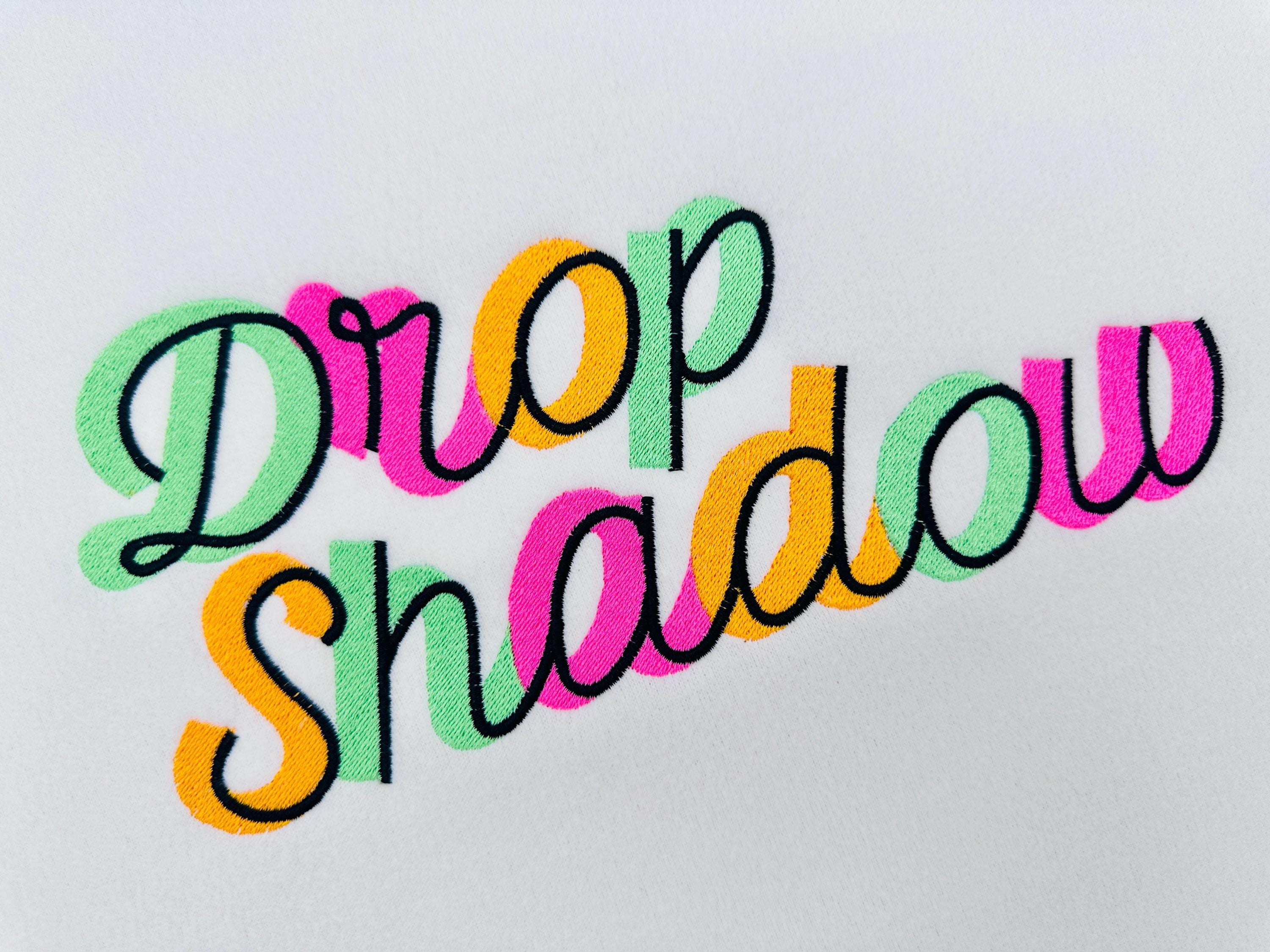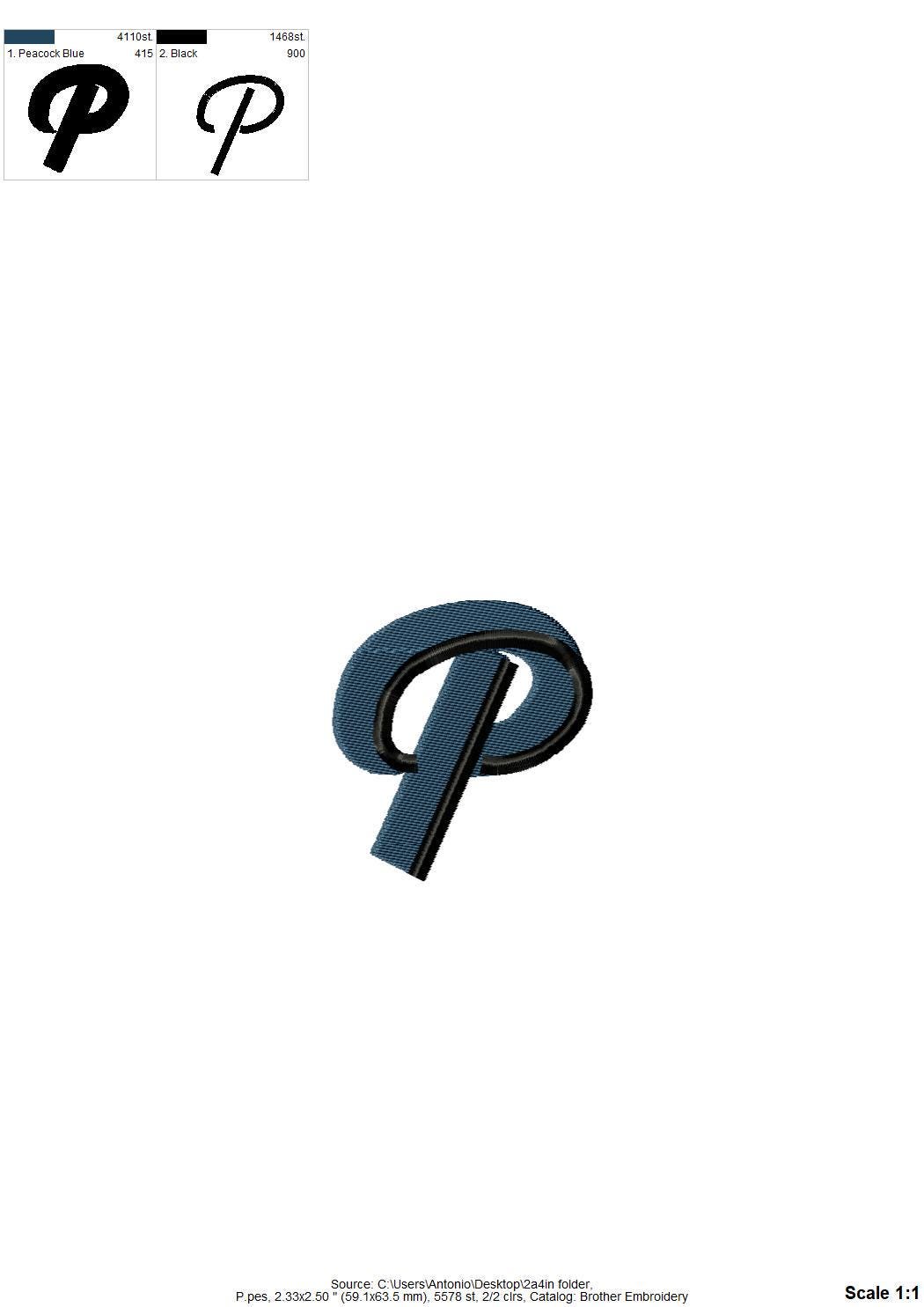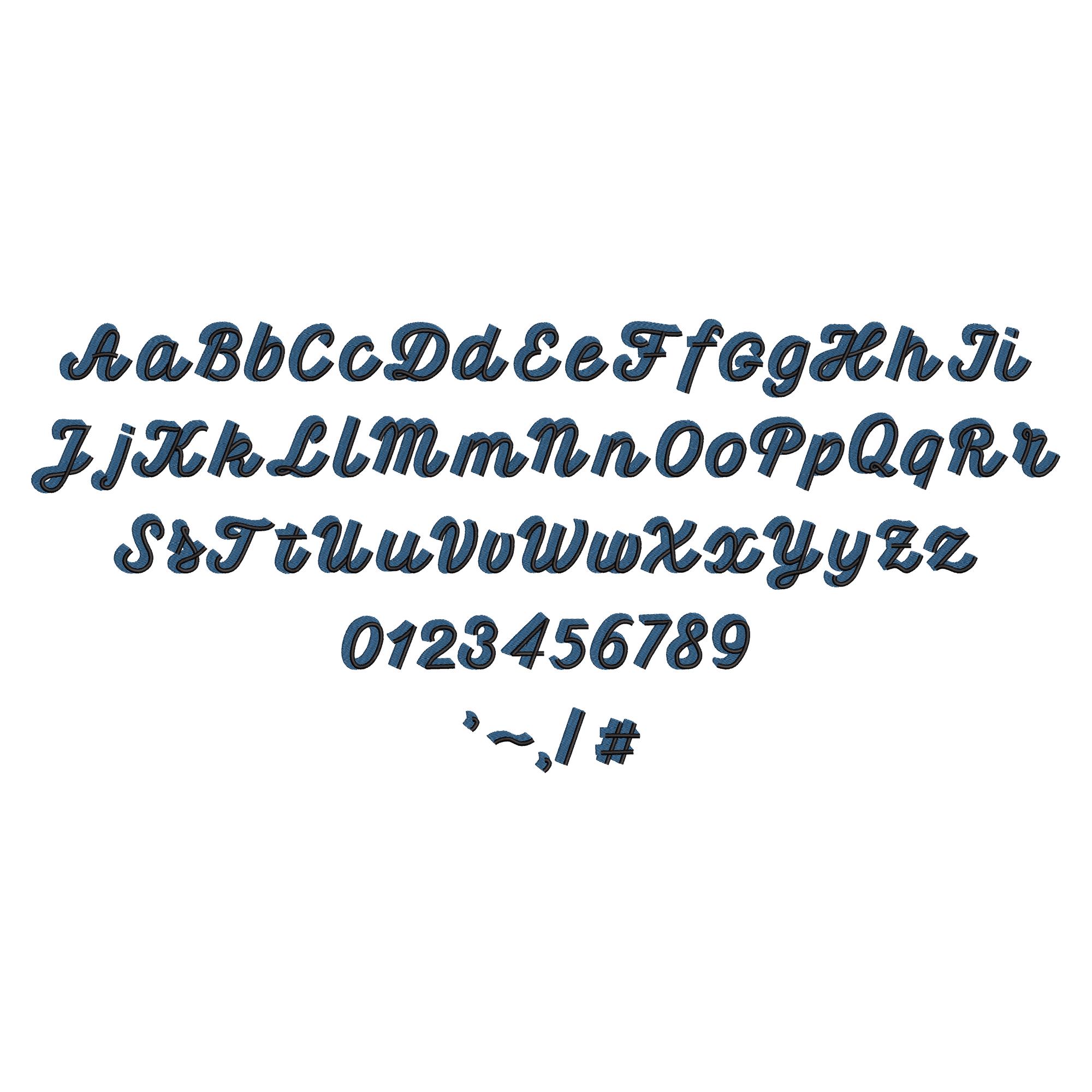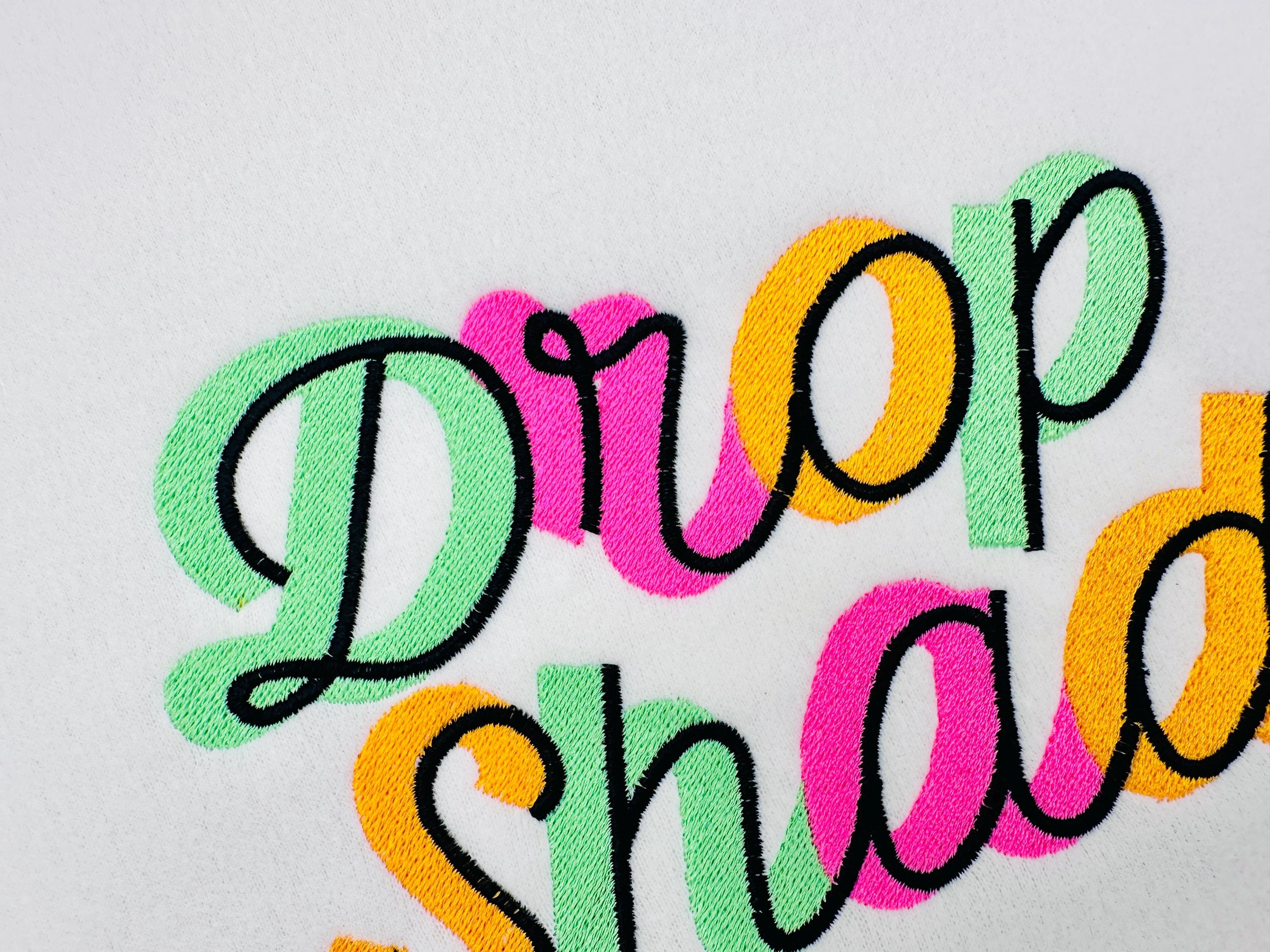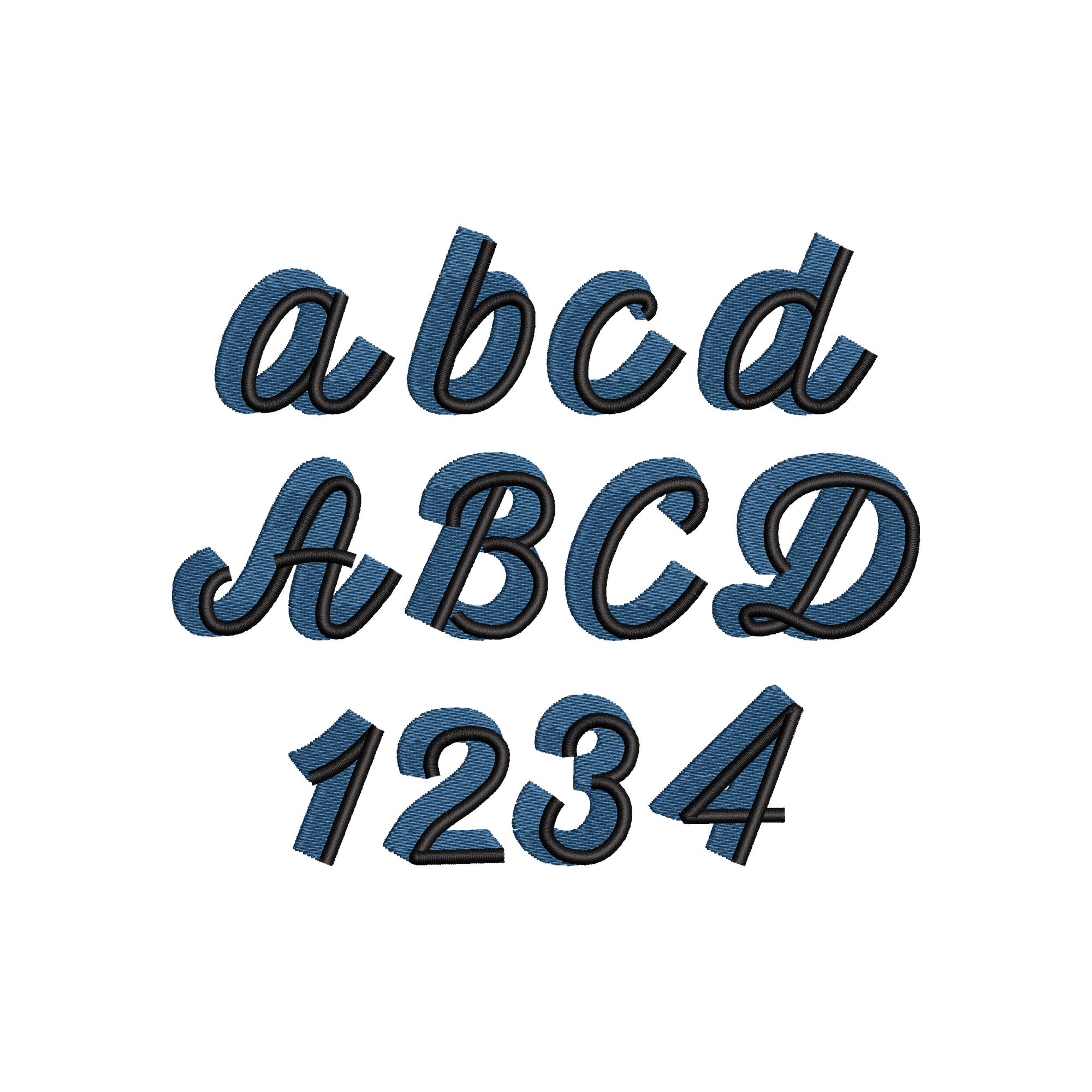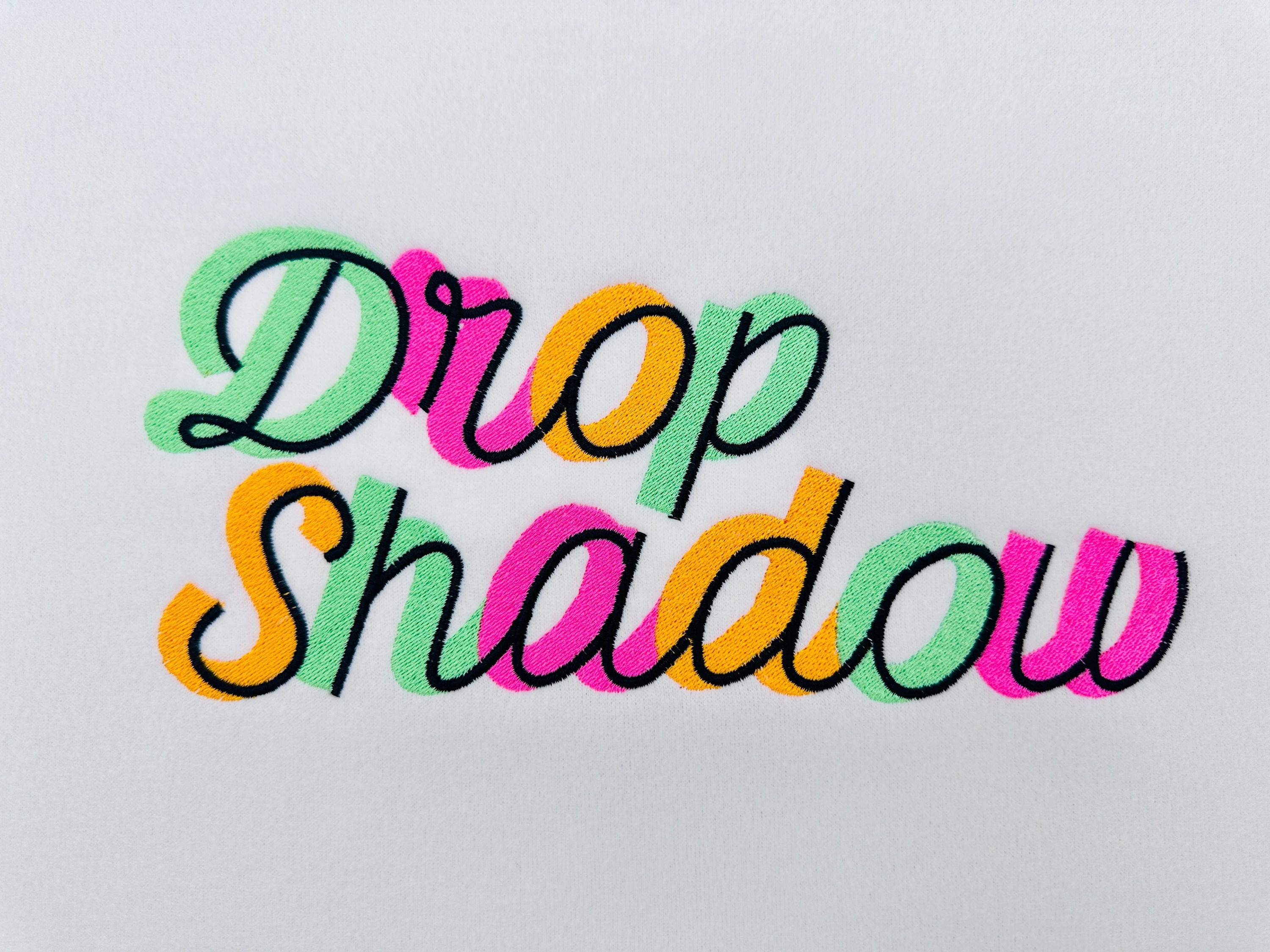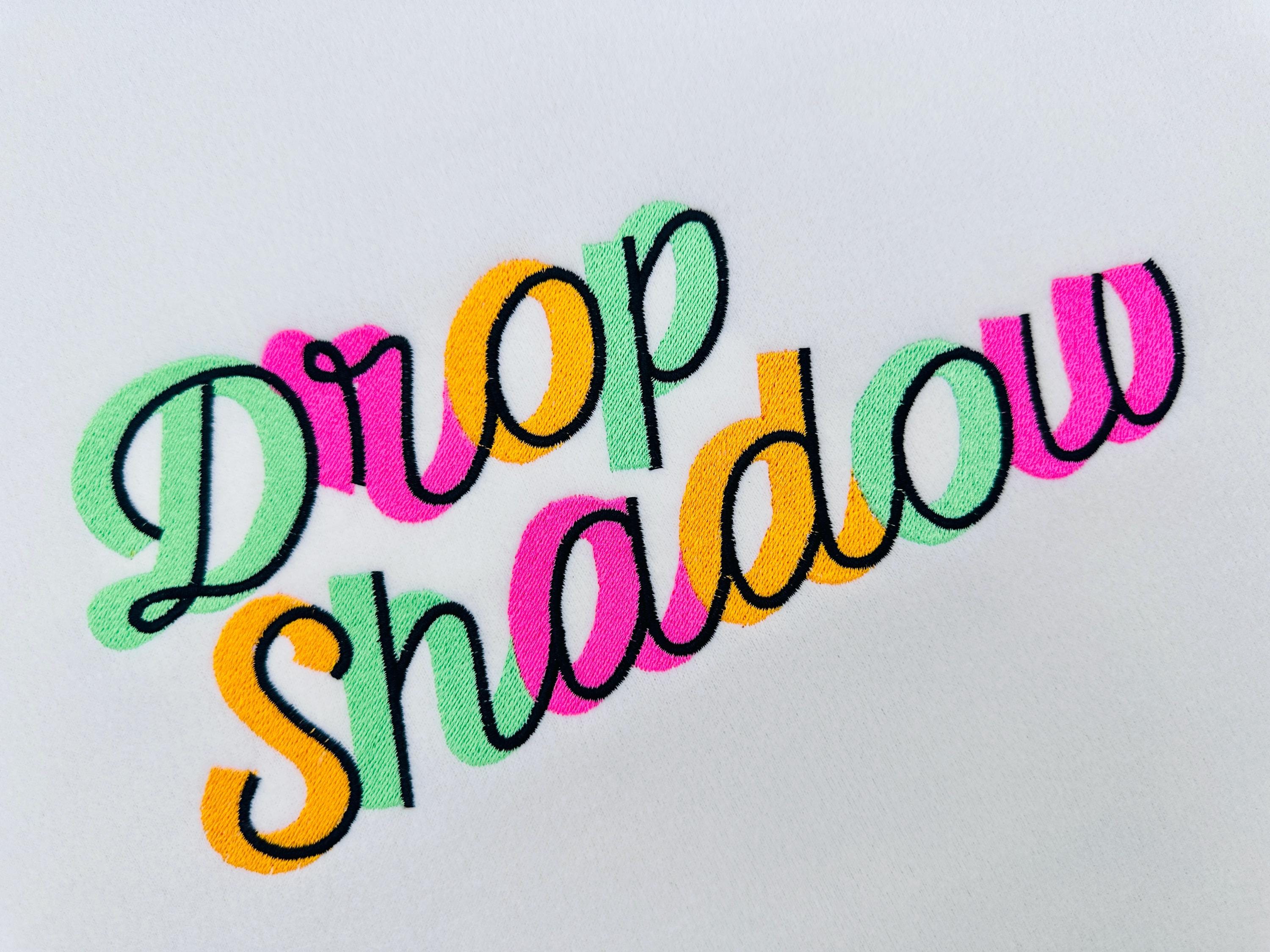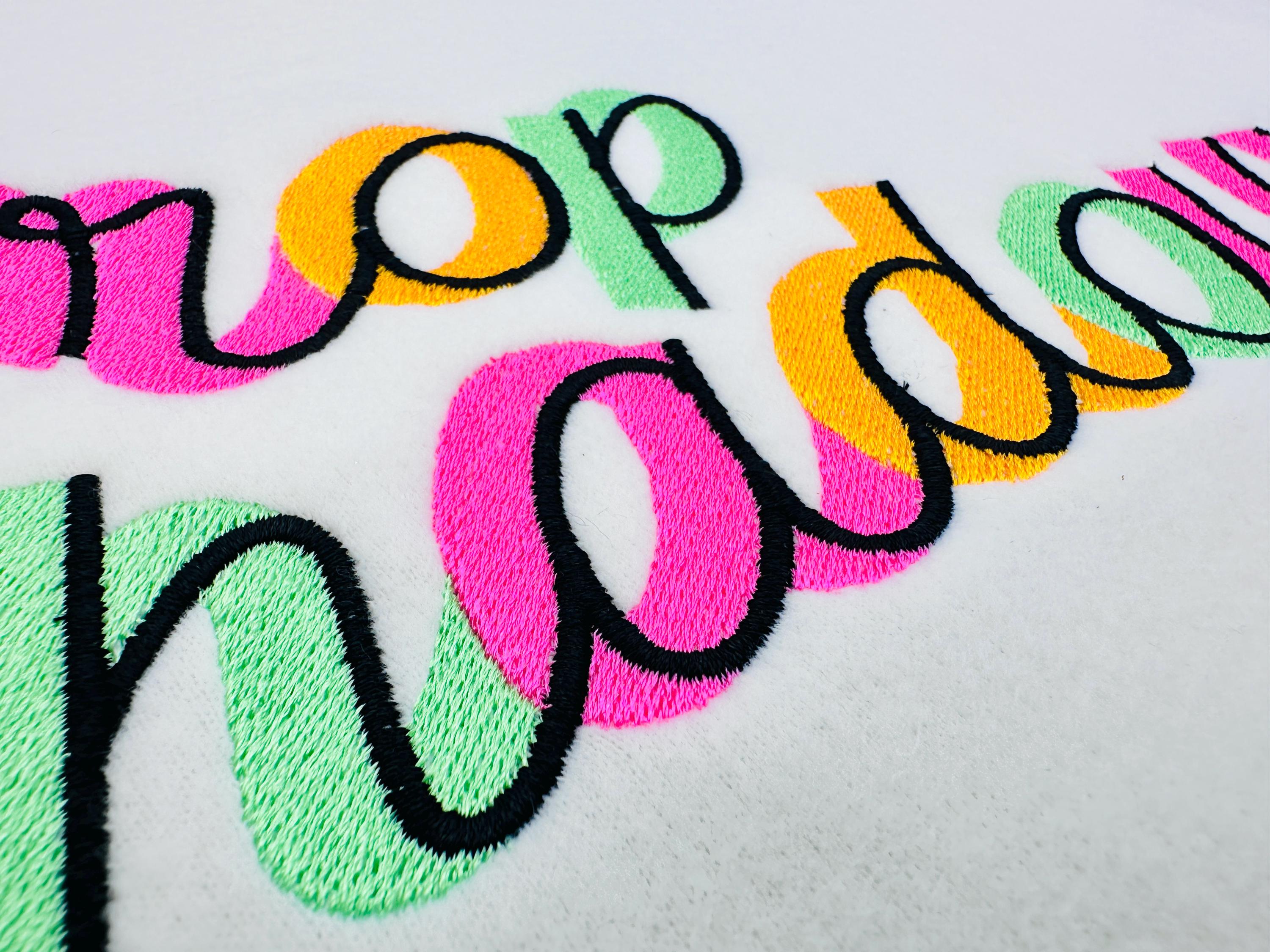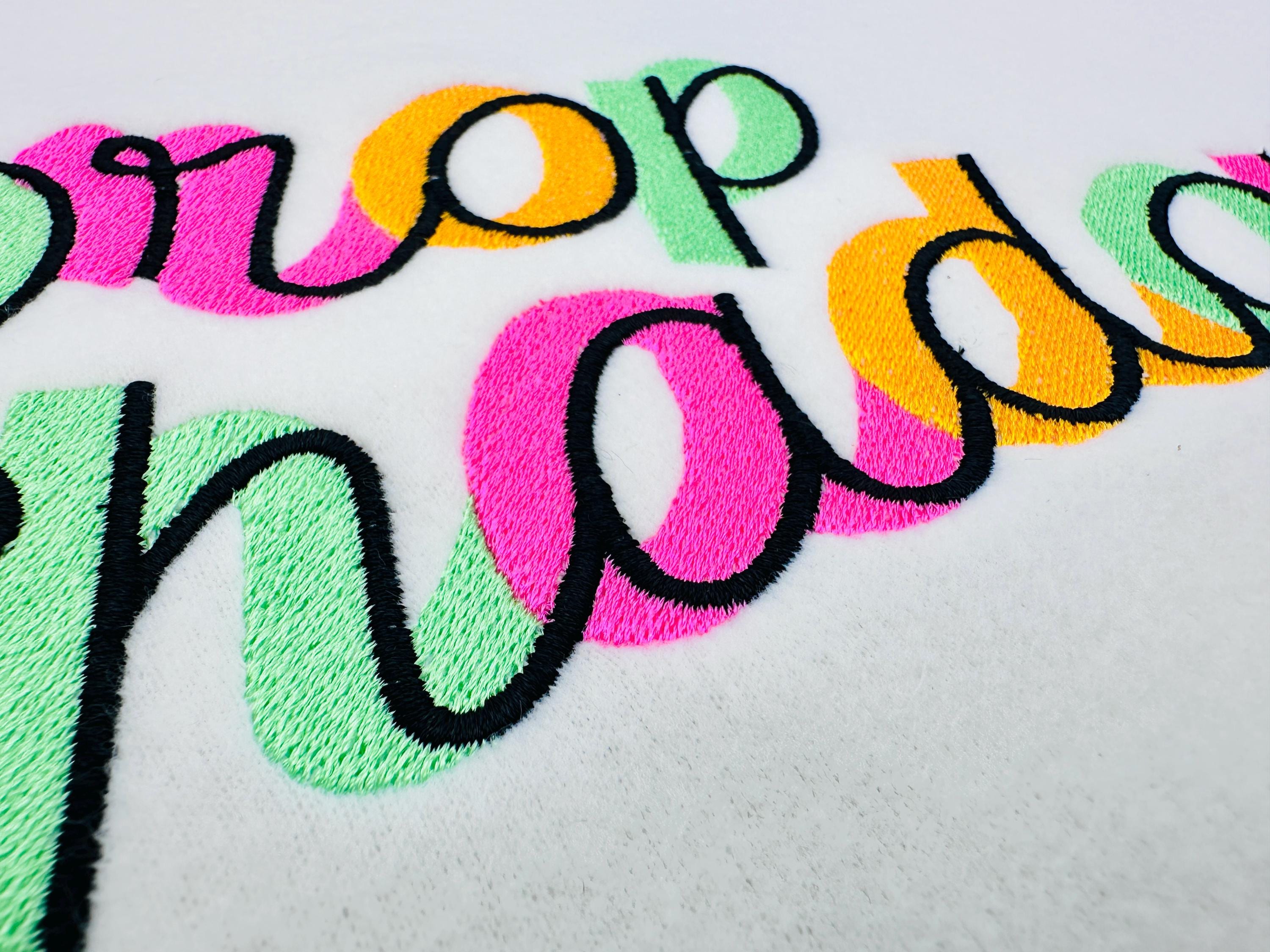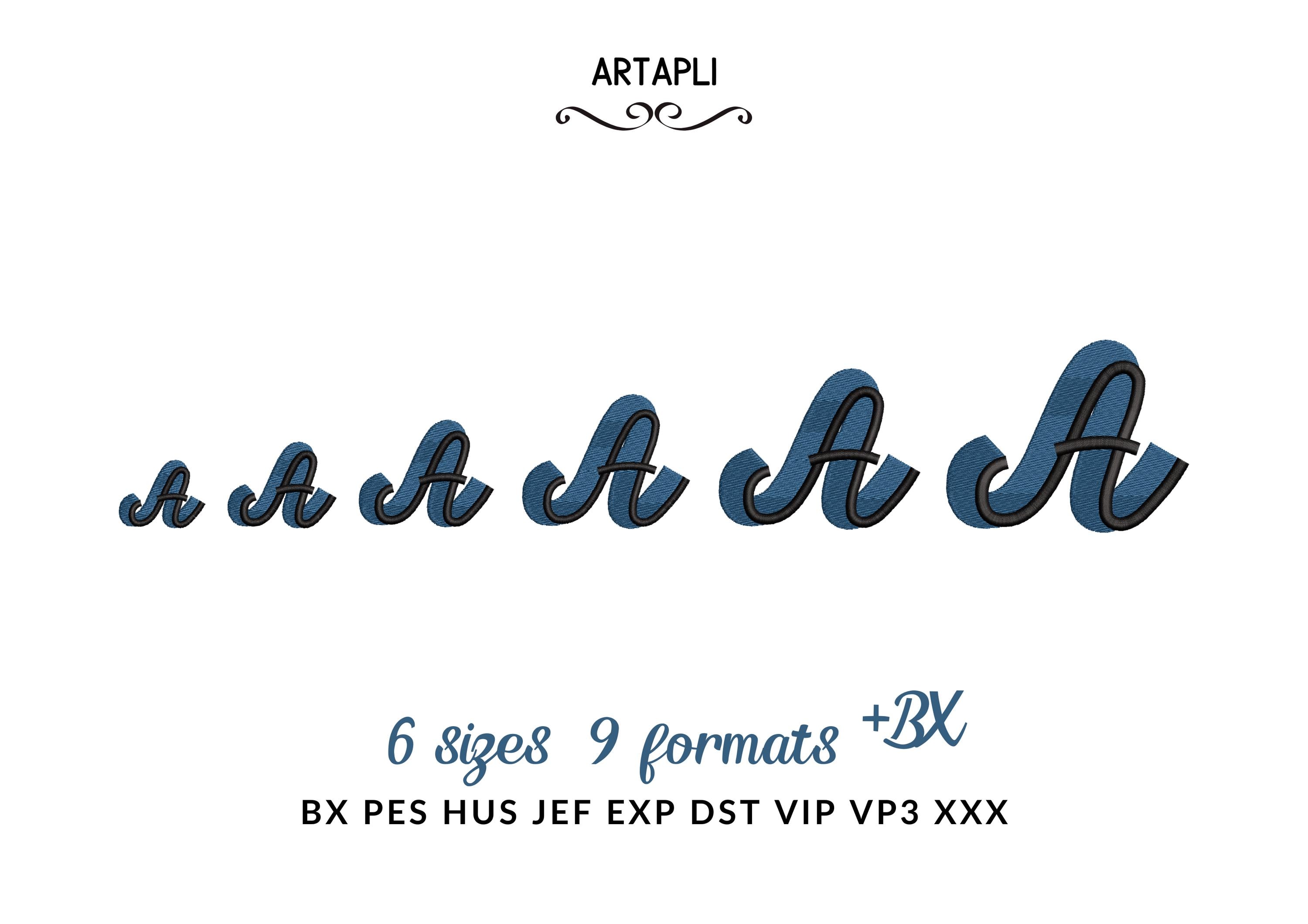
Handwritten Drop Shadow Pop FONT fill stitch double 2 color Alphabet letters Monogram machine embroidery designs sizes 1 up to 2.9 inch BX
Whole alphabet Aa-Zz uppercase and lowercase letters, numbers 0-9, and punctuation.